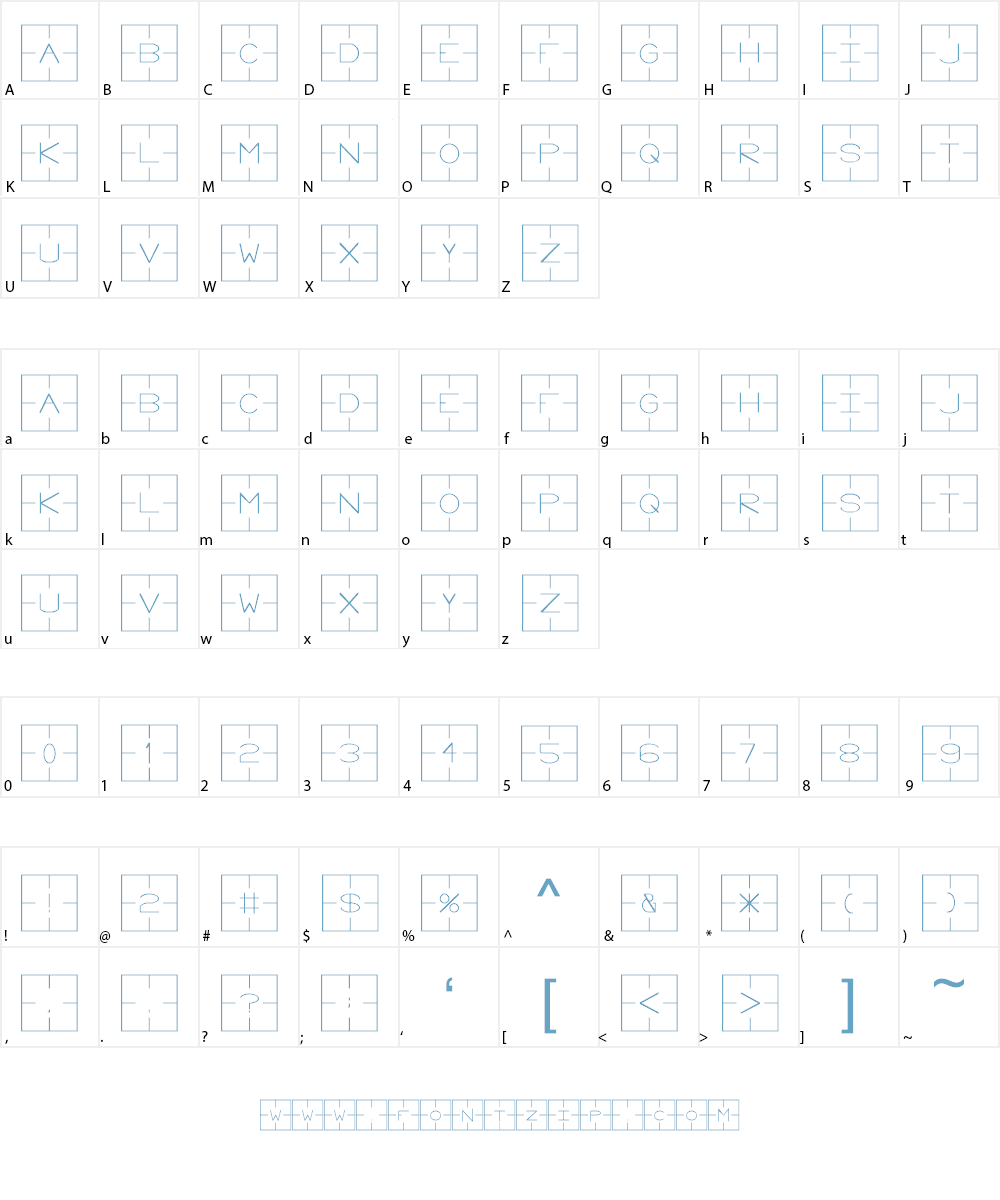
I ride the bus a lot. Probably because I don't have a car. One day the bus went through this little industrial park, and there was this sign for some company. It was called Laser something-or-other, and the logo was some simple lettering in little crosshairs, pretty much like this font. This font has no international characters, but it does include numbers and punctuation.